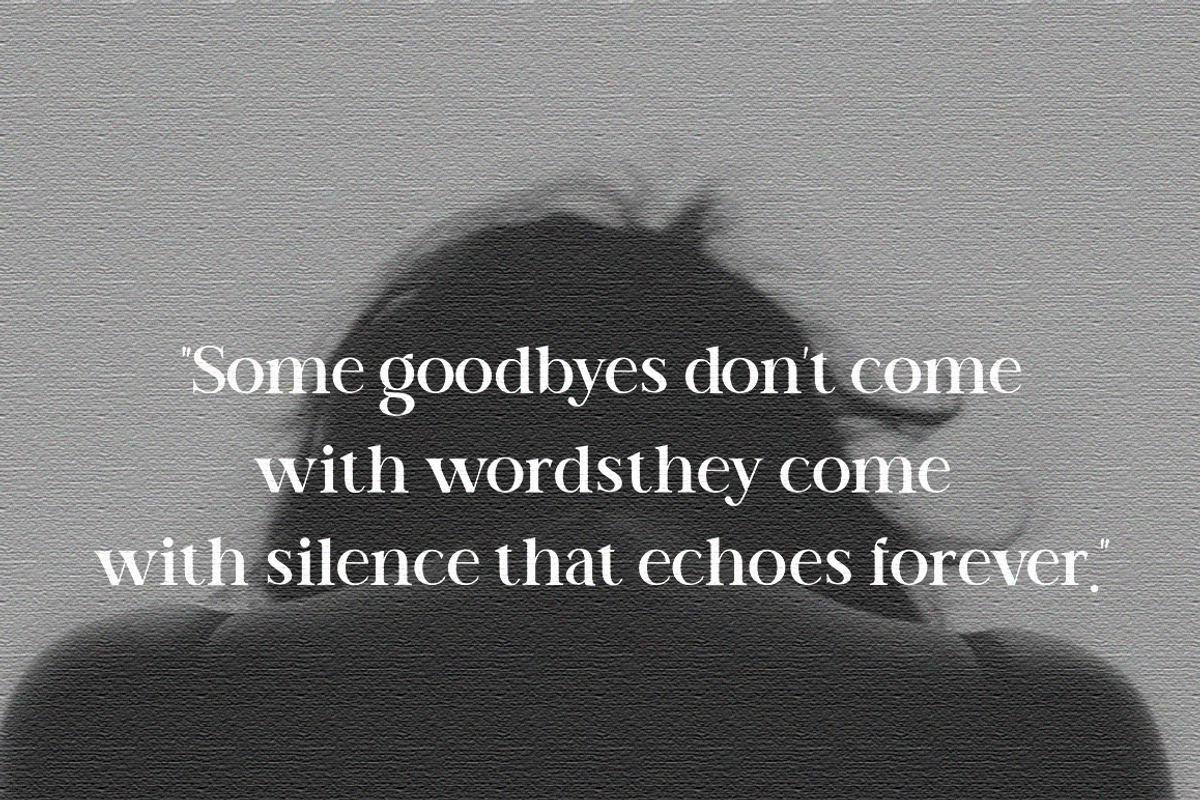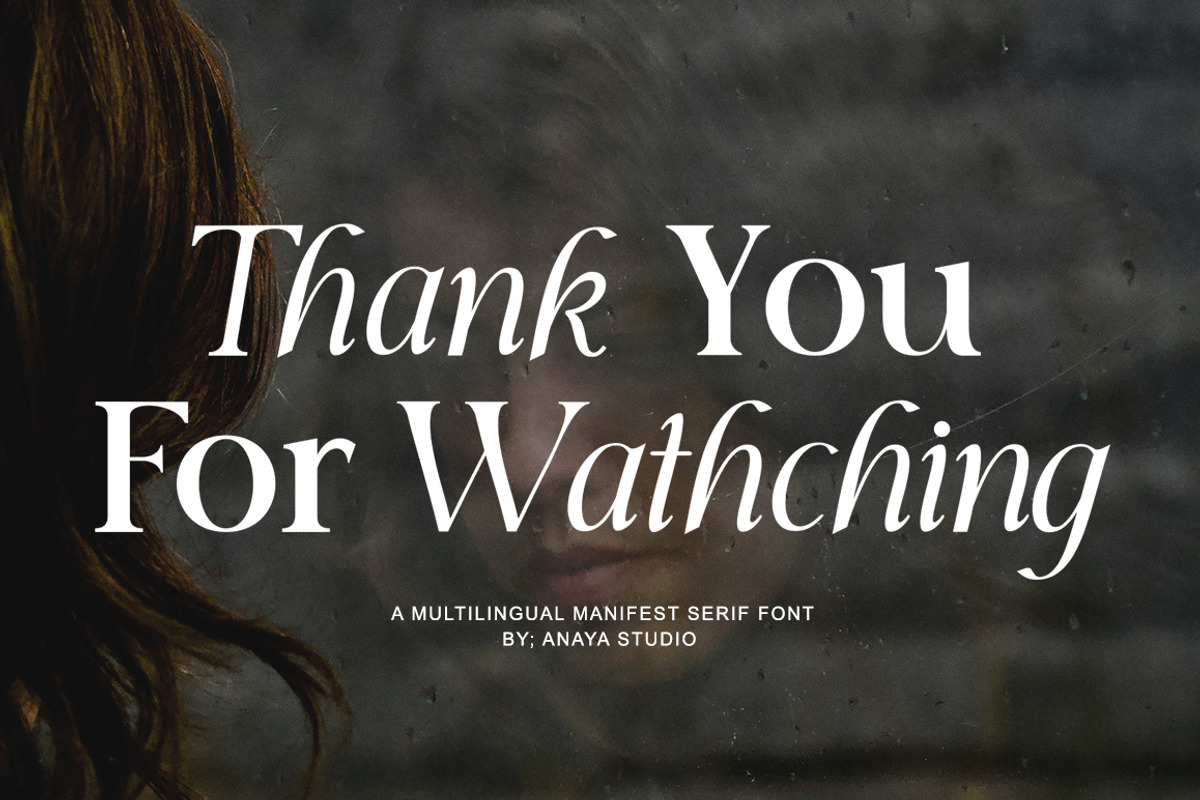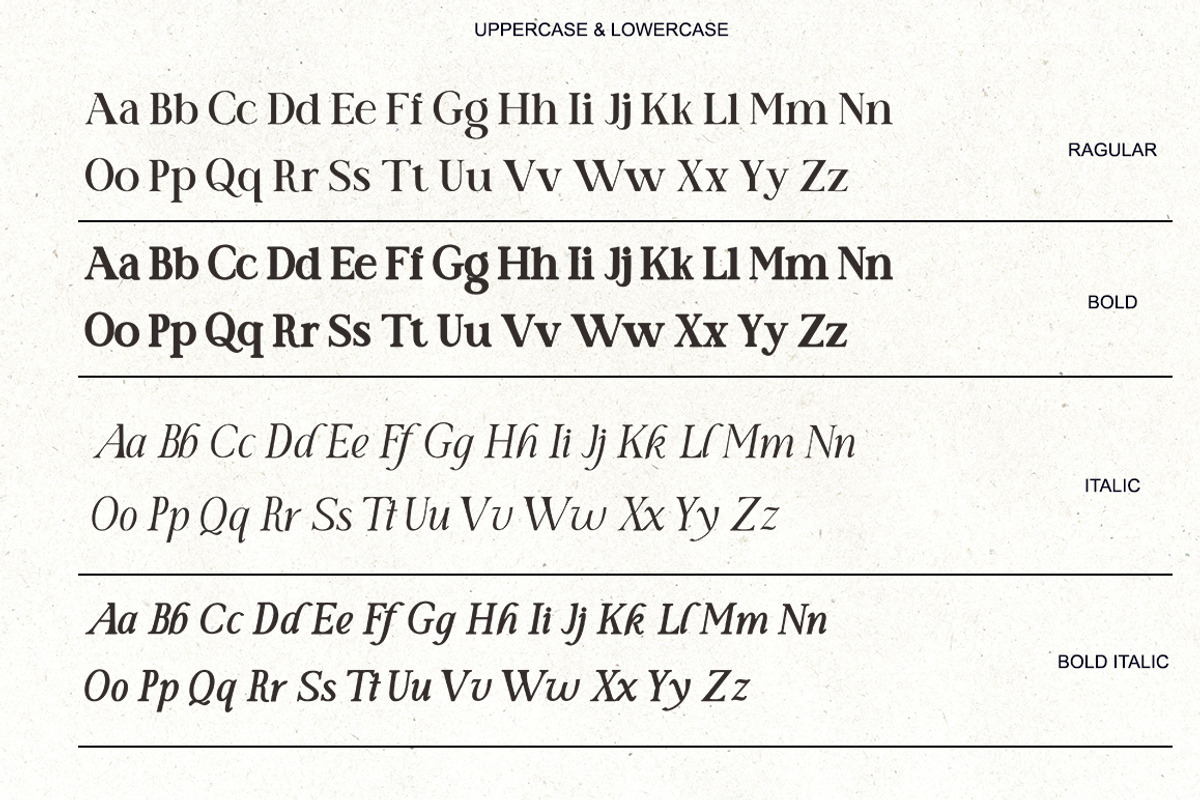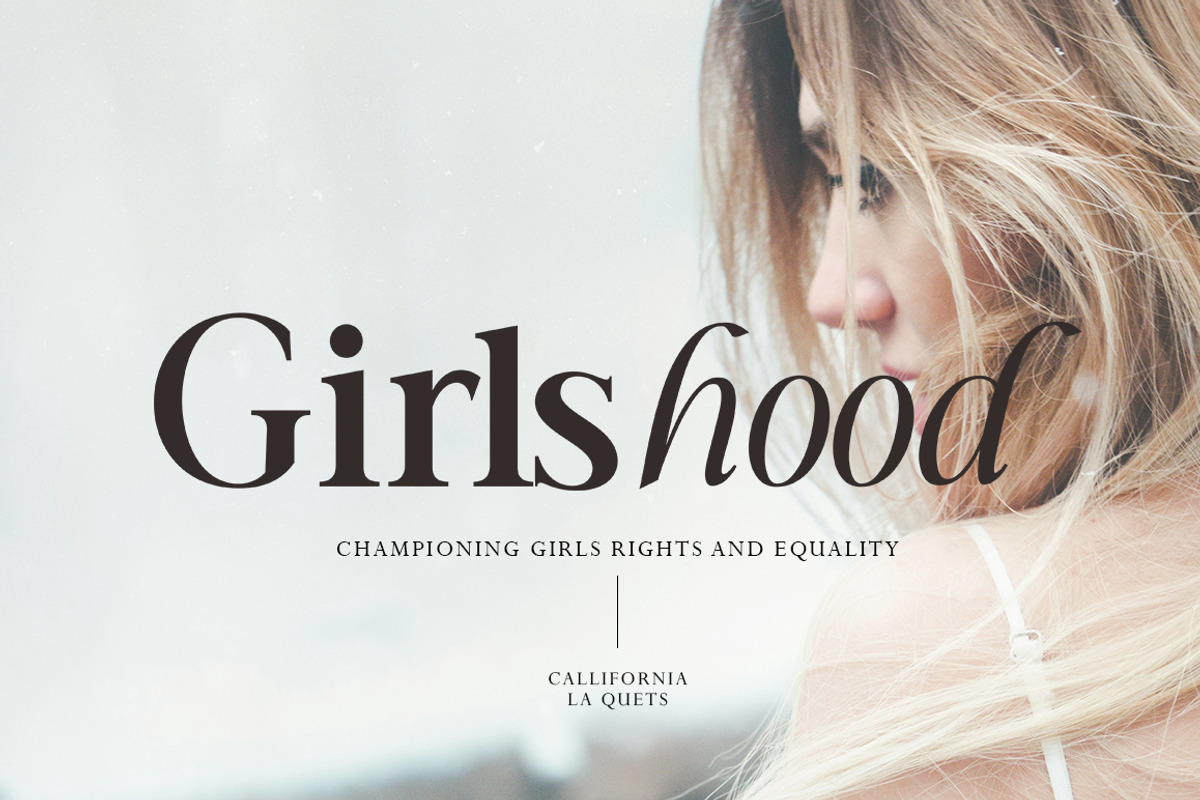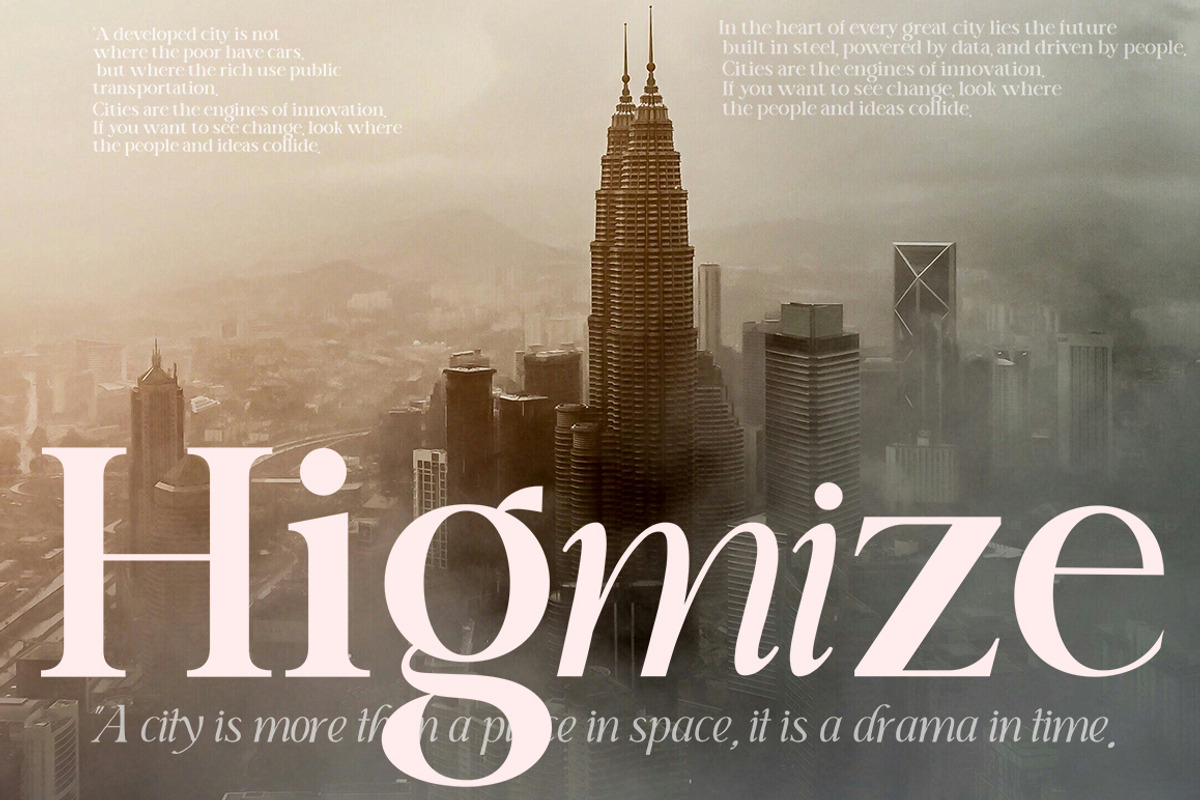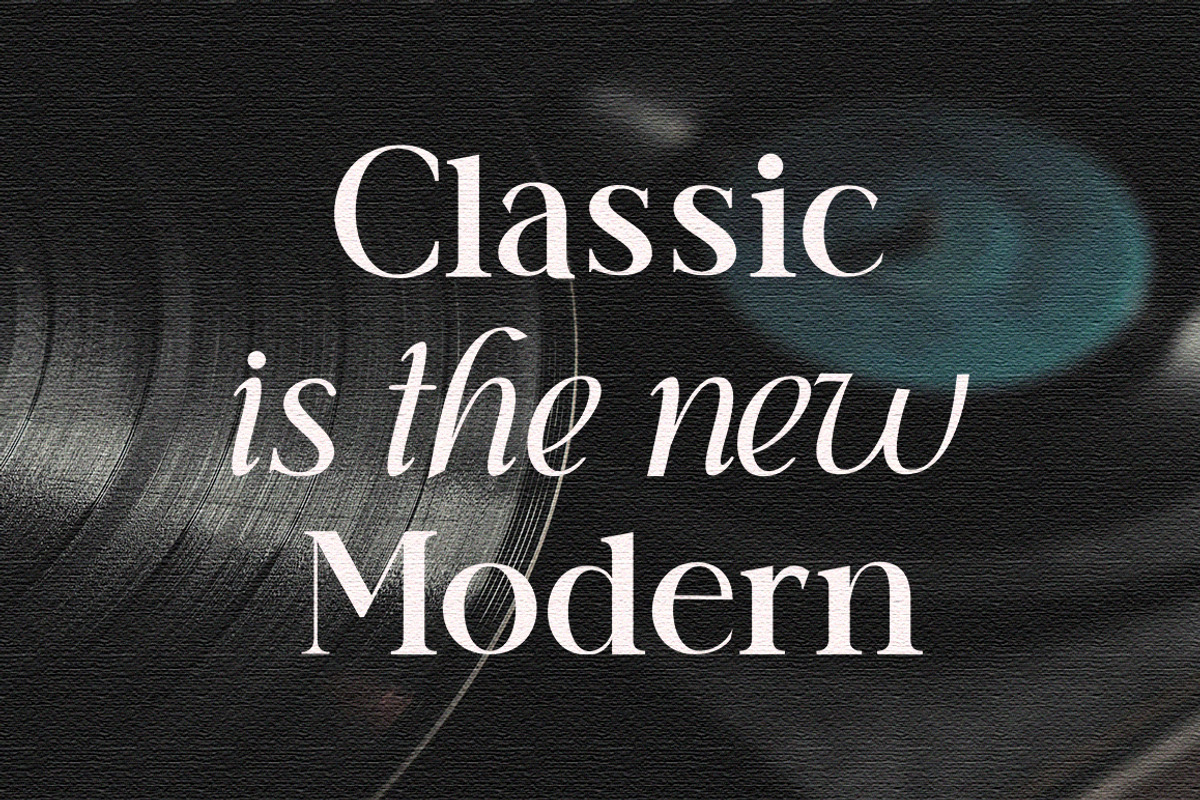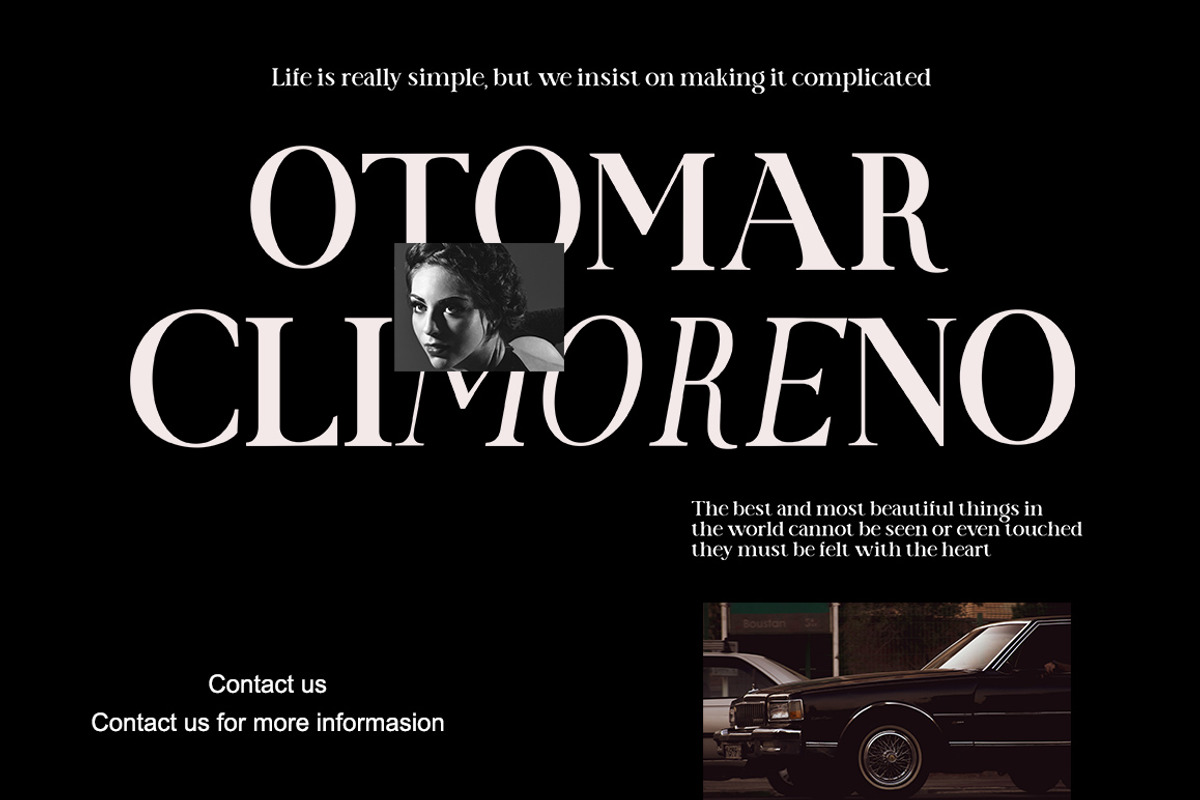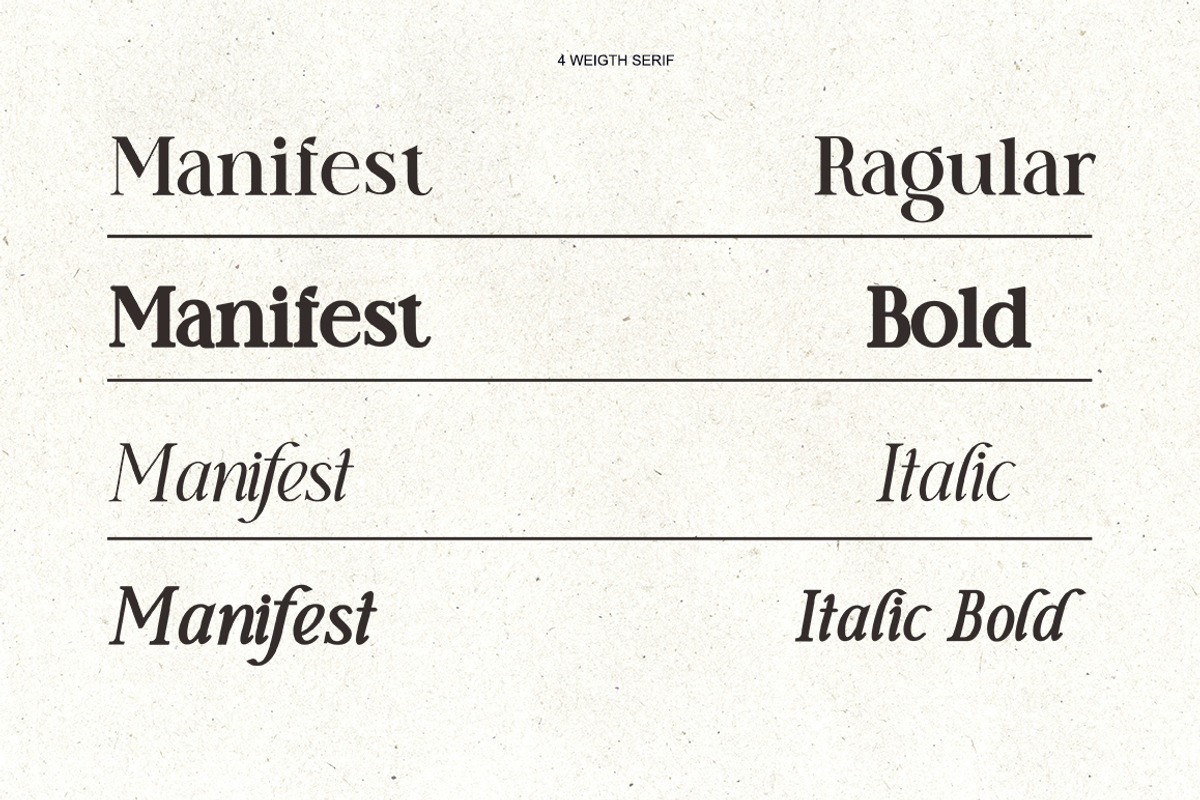
Manifest Font Serif
Manifest is a refined display serif font characterized by its soft, rounded serifs that give it a soft and friendly feel. Unlike traditional serif fonts with sharp or angular serifs, Manifest takes a softer, rounded approach, giving it a contemporary yet elegant personality. The rounded serifs blend seamlessly with the clean, geometric structure of the letterforms, creating a harmonious balance between modern aesthetics and classic influences.
The font features gentle curves and a subtle, subtle contrast in stroke thickness, which enhances its readability while maintaining a bold feel at larger sizes. Manifest is perfect for designs that require a sophisticated, yet easy-to-understand typeface. Its soft-edged serifs make it versatile for a variety of high-impact applications such as editorial headlines, brand identities, luxury goods, and creative advertising.
The font exudes a sense of modernity and elegance, making it a great choice for projects that prioritize readability and style. Whether used for high-end branding or bold headlines, Manifest offers a distinctive modern look with a touch of classic charm.